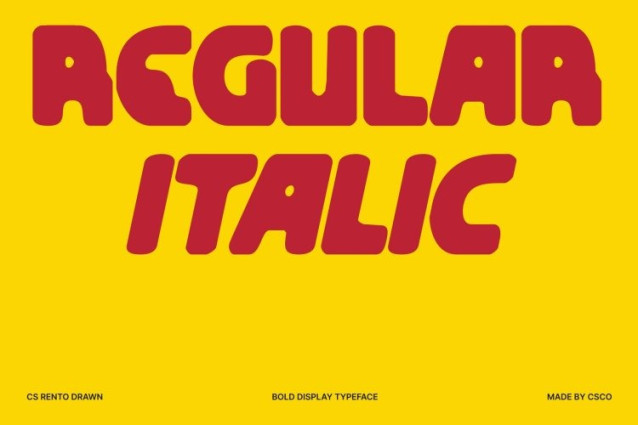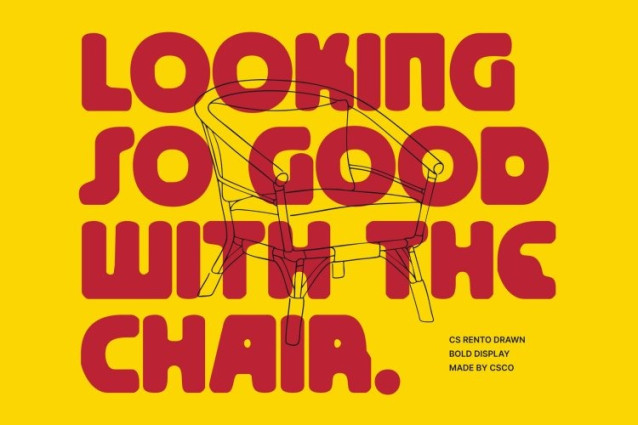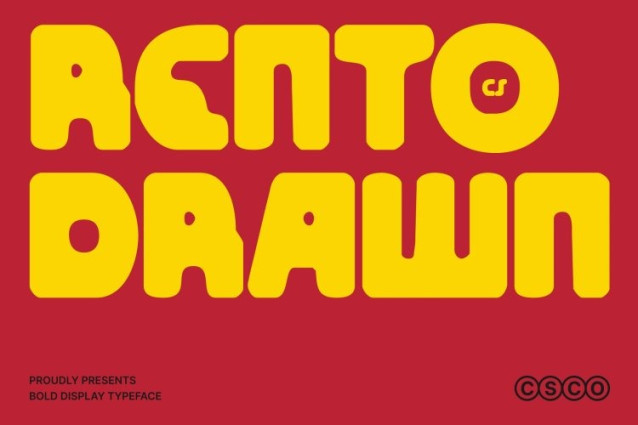
CS Rento Drawn Font
CS Rento Drawn Font This is a bold display font built from strong geometric foundations combined with smooth, softened contours. Its confident structure delivers clear visual impact, while rounded details and the drawn texture introduce warmth and approachability. This balance allows the font to stand out boldly without feeling rigid or aggressive.
Futuristic Vibe with Modern Style
Blending futuristic influence with contemporary design, this font presents a clean, forward-looking aesthetic. The geometric construction gives it a tech-inspired base, while gentle curves and hand-drawn nuances add personality and calm. The result is a typeface that feels innovative yet friendly ideal for modern creative expression.
Fresh, Cheerful, and Cool Impression
With playful geometry and softened forms, this font carries a fresh, cheerful personality with a cool, modern edge. It communicates optimism and clarity while maintaining visual harmony, making it well suited for designs that aim to feel positive, engaging, and stylish.
Perfect for Titles and Creative Design
Designed for display use, this font performs beautifully in titles, posters, branding, packaging, and digital visuals. It brings originality, confidence, and a calm futuristic charm to every project perfect for designers seeking bold typography with a friendly, contemporary voice.